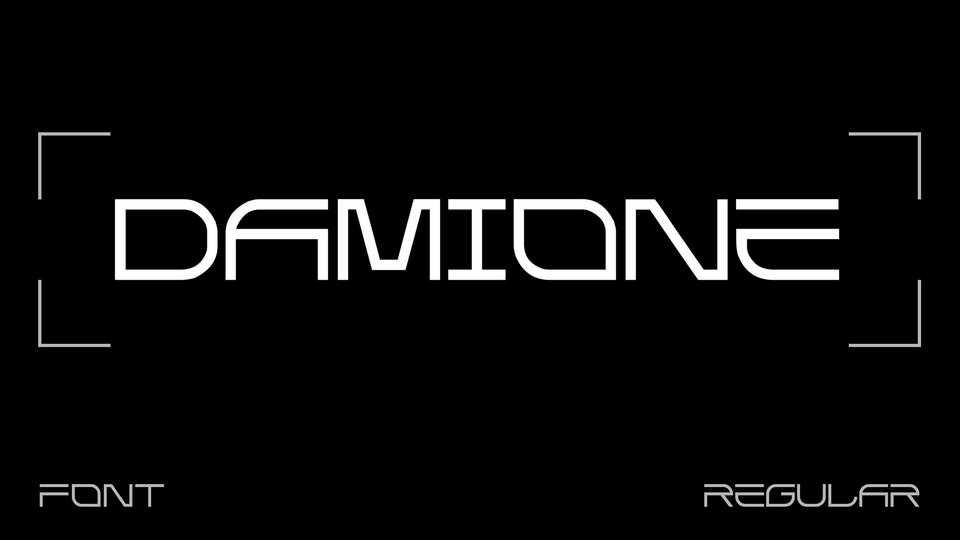
Download DaMiOne font, a geometric display typeface inspired by sci-fi and technology. With its minimalistic and futuristic design DaMiOne font is perfect for logos, branding, games, album artworks and so on.